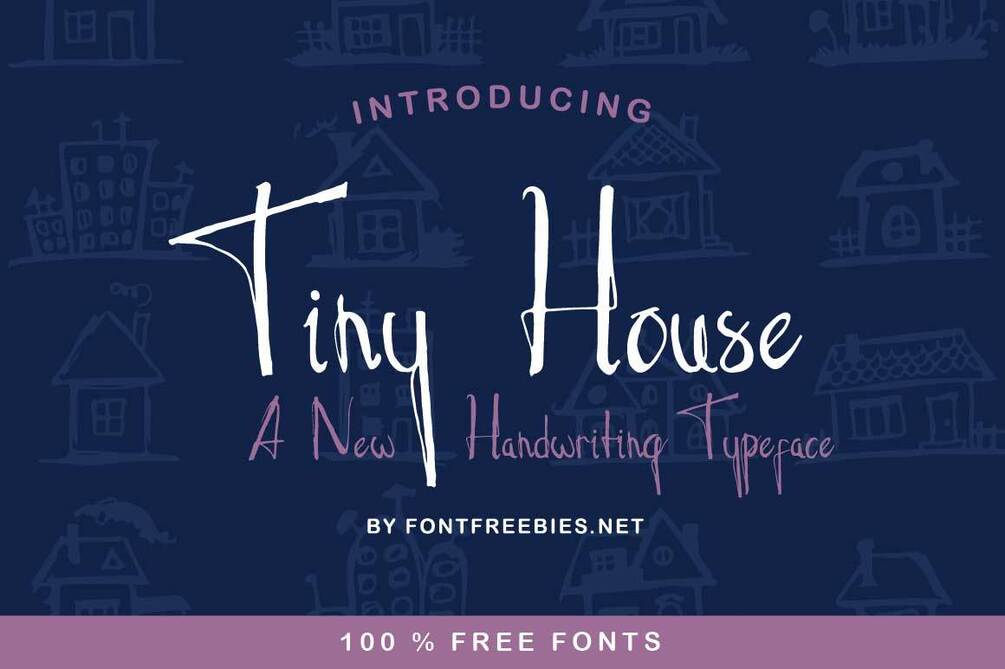
Free Font Tiny House Typeface
A new handwriting style typeface, we give name Tiny House Typeface.
Tiny House Typeface is a unique, cool and modern handwritten font. It's hand look style makes it perfect for use in all your design projects be it logos, signatures, labels, packaging design, blog headlines. Using Pinot will definitely make your text stand out.